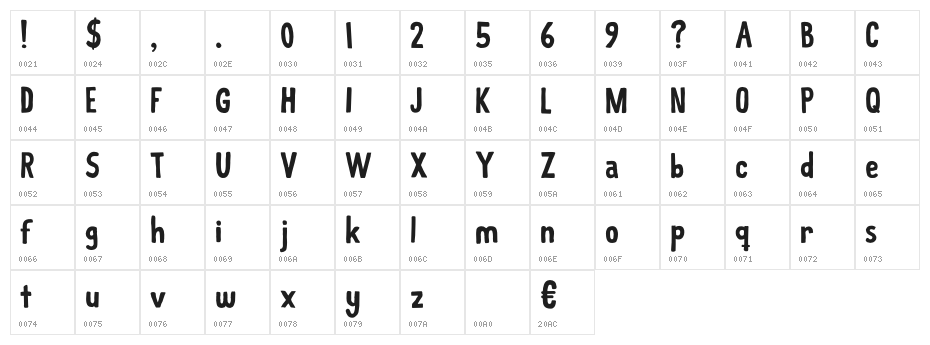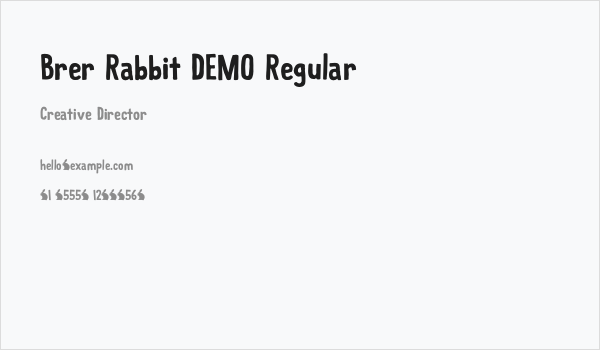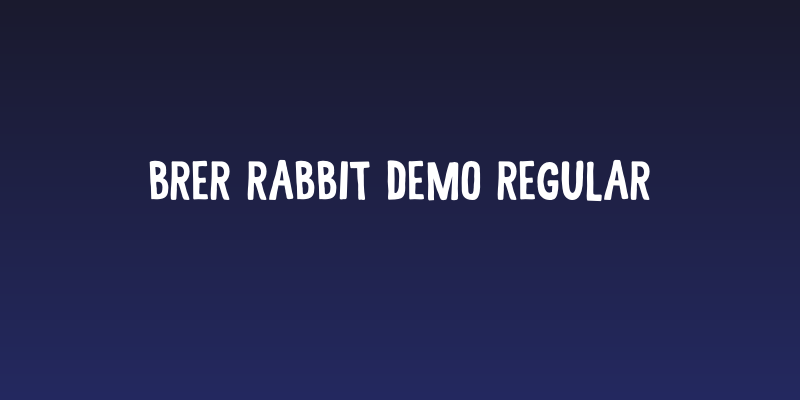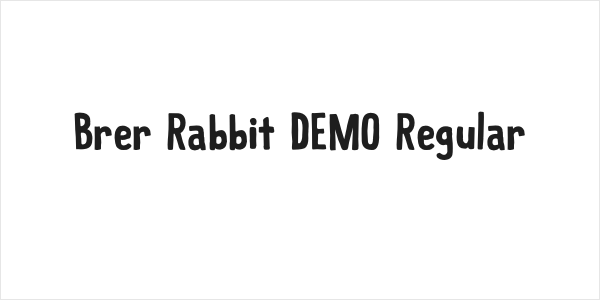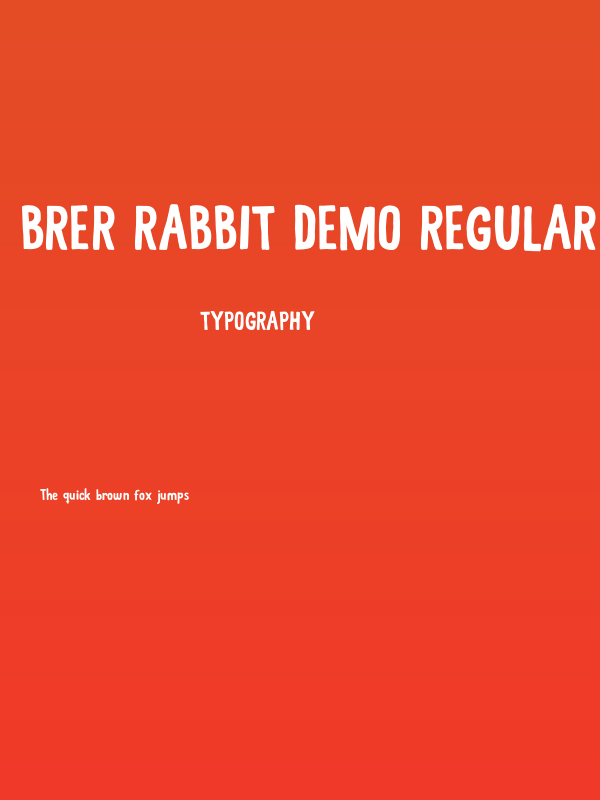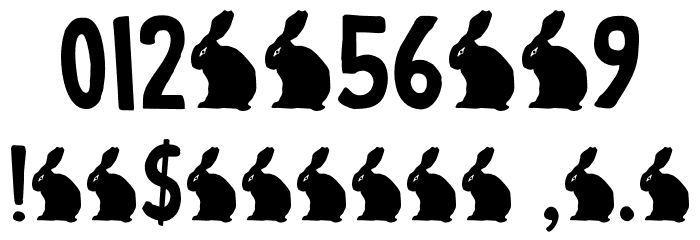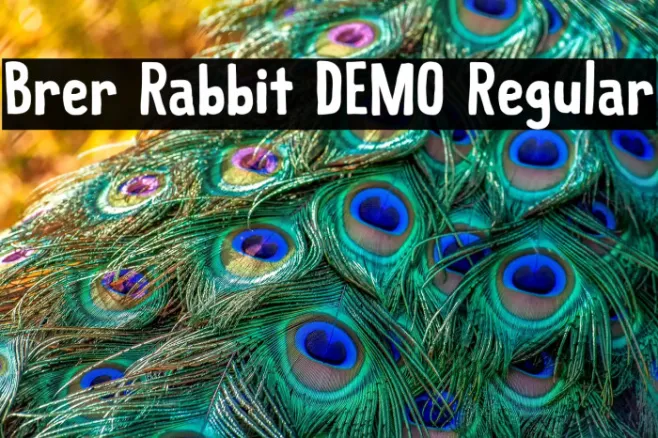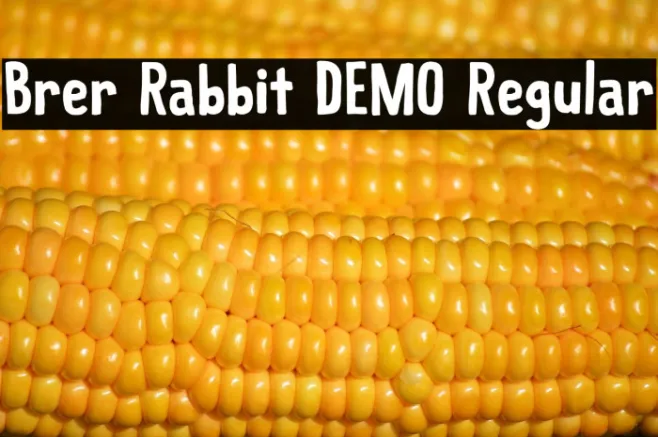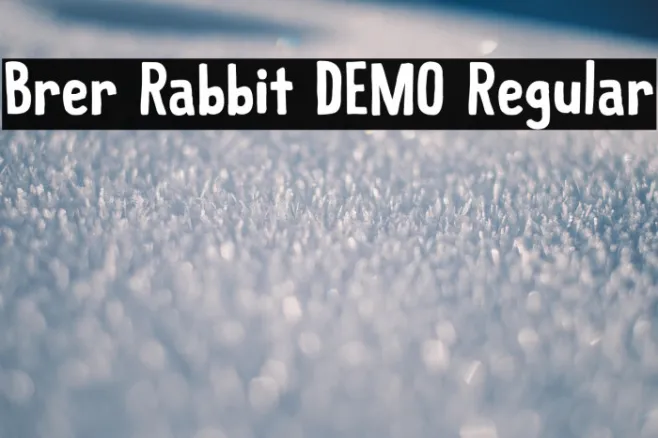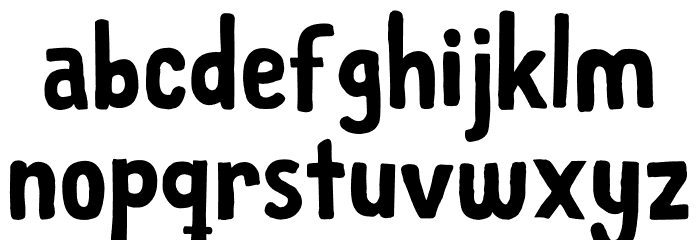
Brer Rabbit DEMO Regular Font
Brer Rabbit DEMO Regular Description
This playful and whimsical font features bold, rounded characters with a hand-drawn aesthetic. The uppercase and lowercase letters are consistent in their playful style, with a slightly uneven baseline that adds to the charm. The numbers are bold and easily legible, while the special characters include a unique rabbit silhouette, adding a distinctive touch. The font's overall appearance is casual and friendly, making it ideal for projects that require a fun and approachable look.
| Overall Style | Whimsical |
| Proposed Projects | Ideal for children's books, playful branding, greeting cards, and informal invitations. |